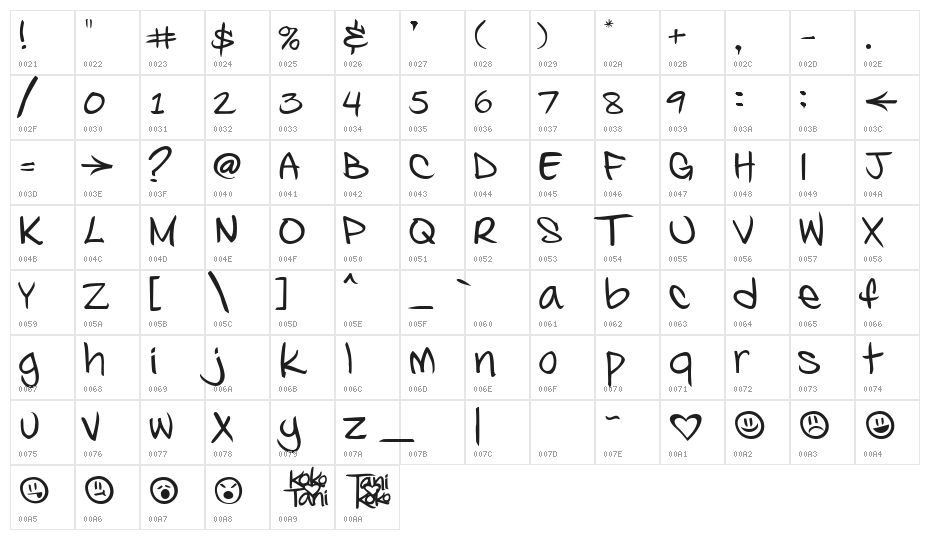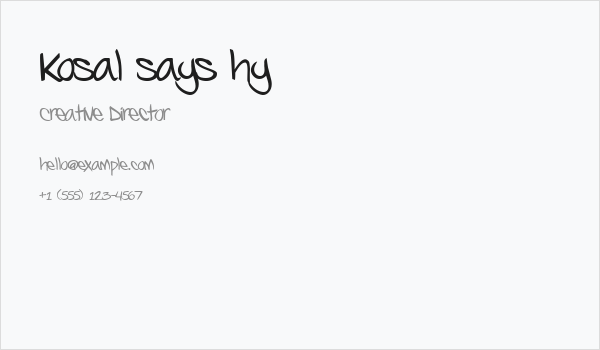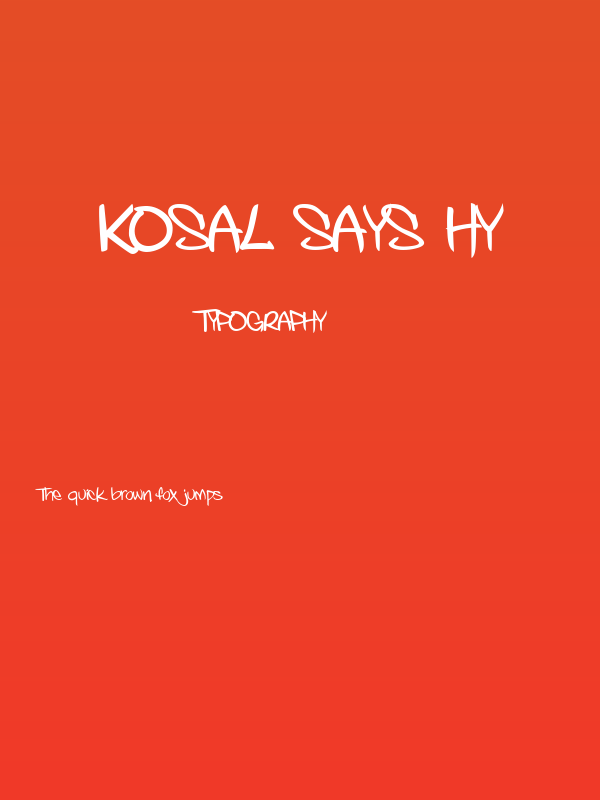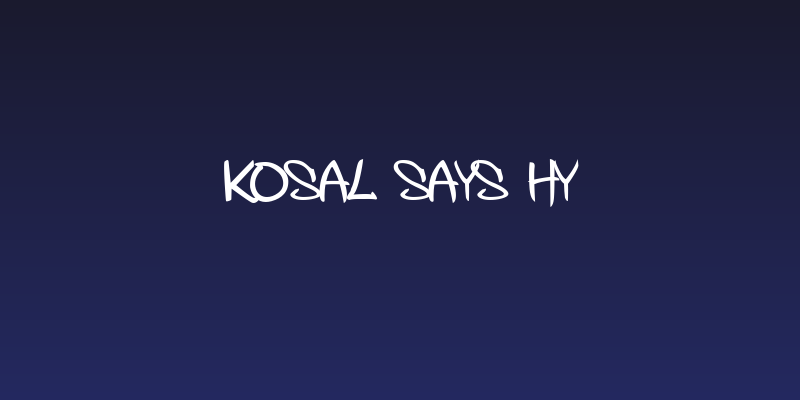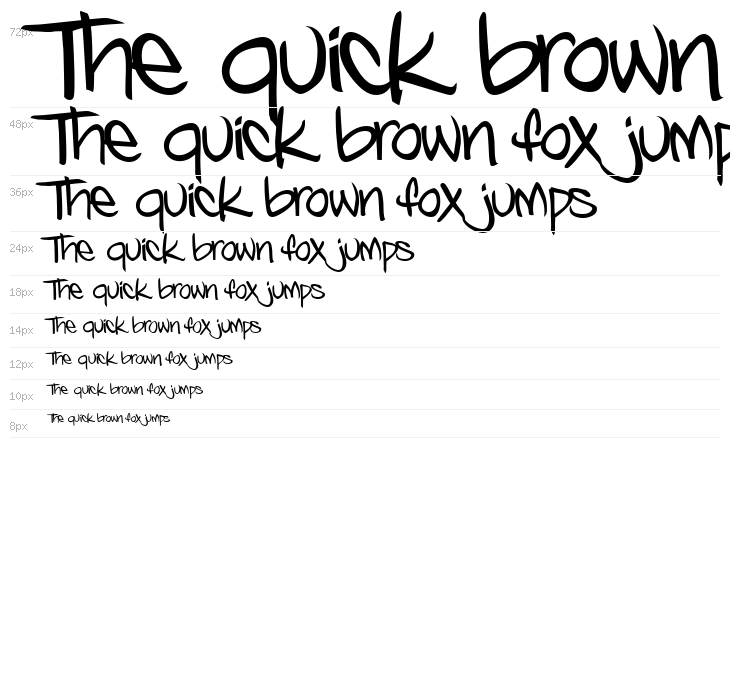
Kosal says hy Font
Kosal says hy Description
This font features a bold, expressive style with a handwritten appearance. The characters are dynamic and fluid, showcasing a playful and artistic flair. Each letter is uniquely crafted with varying stroke thickness, giving it a lively and energetic feel. The uppercase and lowercase letters maintain a consistent style, while numbers and special characters are designed to complement the overall aesthetic. This font is ideal for projects that require a personal touch or a creative edge.